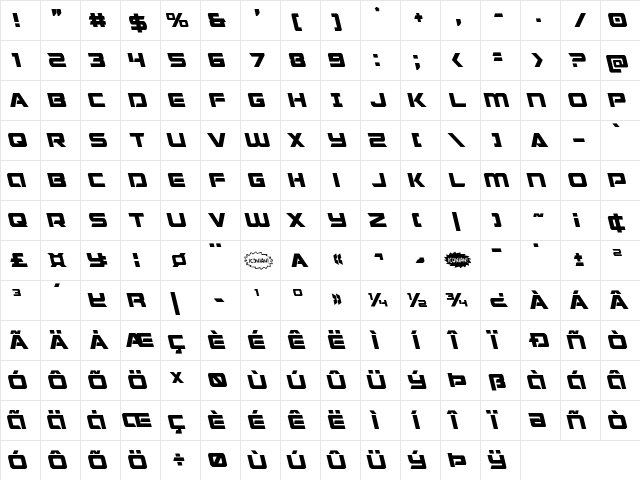
Starduster Leftalic Italic Font Preview
Starduster Leftalic Italic
Starduster Leftalic Italic Font Details
Design Context for Starduster Leftalic Typeface
Starduster Leftalic is a composed and adaptable typeface that performs quietly and consistently across a wide range of design contexts. The slanted form adds forward momentum and visual energy.
Pro Tip: Use Starduster Leftalic for emphasis, pull quotes, and subheadings where its slanted energy can add rhythm to the layout.